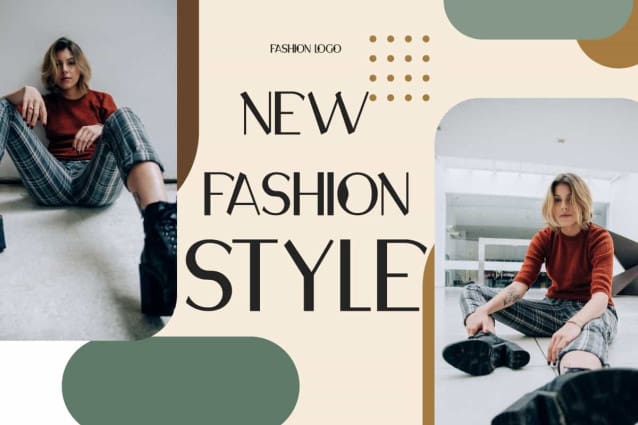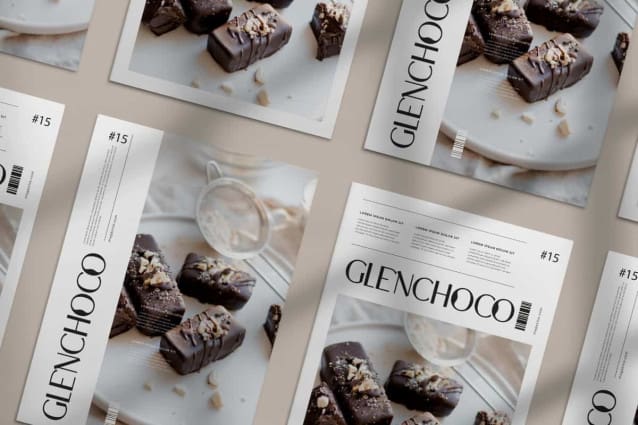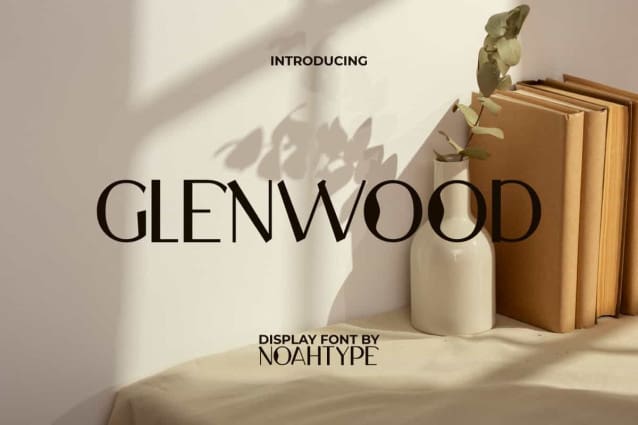
Glenwood Font
Glenwood Font is a unique elegance unusual serif display font by NoahType. This font has unique shapes on some letters so it looks interesting and different. It will be perfect for any designs, such as brand image, cover, custom design, invitation, label, marketing material, menu, poster, product packaging, quote, signage, stationery, web, and many more!
Glenwood Font includes full set of ALL CAPS for Uppercase and Lowercase Basic Characters, Numerals, Punctuation, and Symbol. The characters of this font will give modern looks and also a perfect choice for many industries, such as accessories, advertising, beauty product, dessert store, fashion, furniture, florist, event or festival, game, printing, publishing, salon spa, wedding, etc.